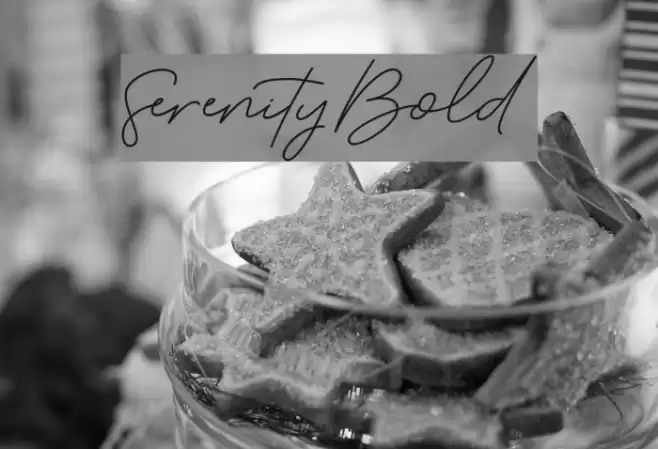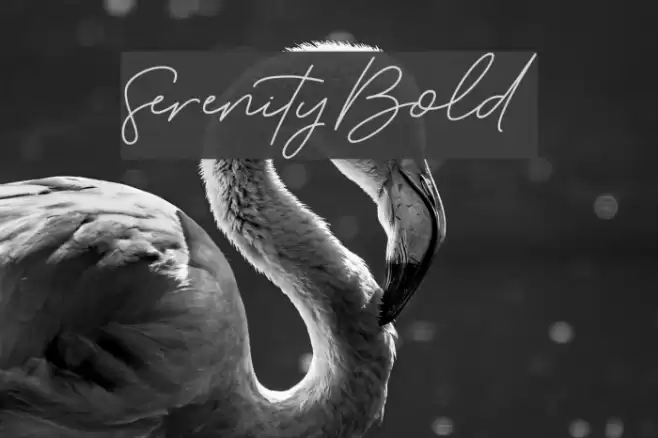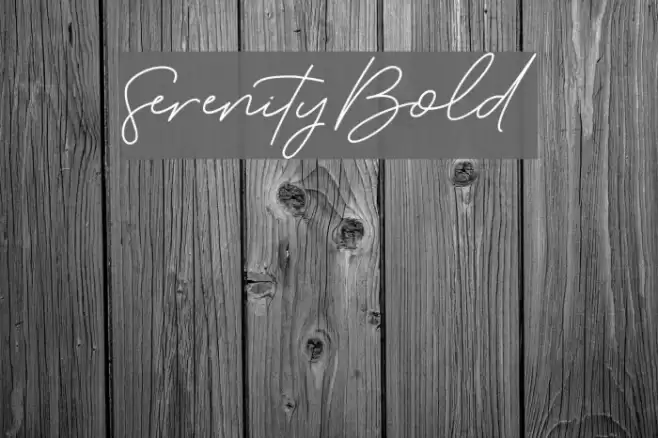
Serenity-Bold Font
Serenity-Bold Description
This font exhibits a flowing, cursive style with elegant, sweeping strokes that mimic the fluidity of handwriting. The characters are interconnected, creating a seamless and continuous appearance. The uppercase letters are slightly more embellished, while the lowercase letters maintain a consistent rhythm and balance. The overall design is airy and light, with a delicate touch that adds sophistication. The font's thin lines and graceful curves make it suitable for projects that require a personal or artistic flair.
A flowing, cursive font with elegant, interconnected strokes from Uncategorized fonts.
- Proposed Projects: Ideal for wedding invitations, greeting cards, personal branding, and artistic projects.
- Overall Style: Elegant, Artistic
- Use Case: Logos, Invitations, Artistic projects